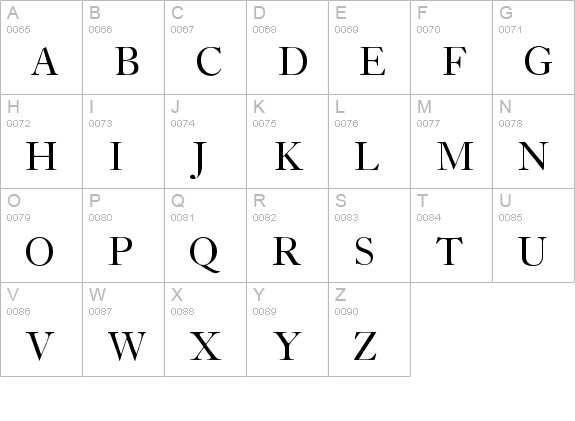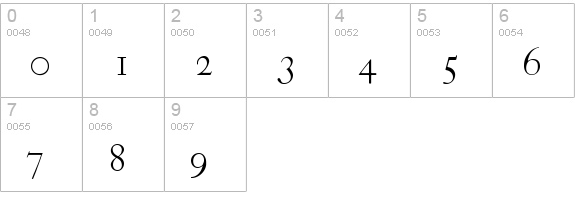
CaslonZH is a timeless serif font that exudes sophistication and elegance. With its classical design and refined details, CaslonZH is perfect for conveying a sense of tradition and prestige in your designs. The subtle curves and sharp serifs of this font create a harmonious balance between elegance and readability, making it suitable for a wide range of projects. What makes CaslonZH even more appealing is that it is available for free download at FontsMarket.com. This means that you can enhance your projects with this beautiful font without any cost, making it a valuable addition to your font collection. Whether you're working on branding, editorial design, or any other creative project, CaslonZH is sure to elevate your work with its timeless charm and versatility. Download CaslonZH today and add a touch of classic sophistication to your designs.